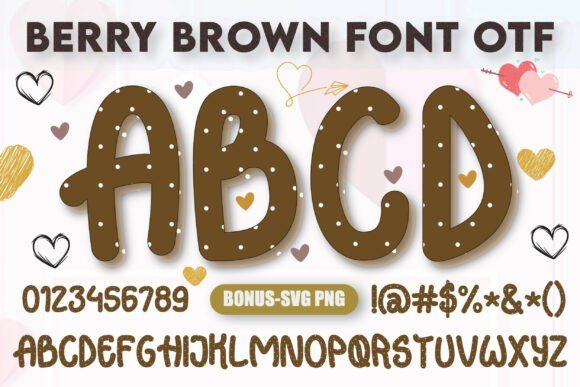
Berry Brown Font: Add a Touch of Whimsy to Your Designs
Have you ever found yourself staring at a blank page, desperately searching for the perfect font to bring your creative vision to life? I know I have! The struggle is real, but what if I told you there’s a font that’s sure to make your heart skip a beat? Enter the adorable Berry Brown Font, a charming display alphabet designed to add a sweet and friendly feel to your designs.
With its soft curves and bubbly character style, the Berry Brown Font is perfect for fun and creative projects that need a touch of warmth. Whether you’re designing for kids, creating branding materials, or crafting social media graphics, this font is sure to bring a smile to your face and a touch of whimsy to your work. As a designer, you’ll appreciate the versatility and playfulness of the Berry Brown Font, making it a valuable addition to your toolkit.
Berry Brown Font Key Features
- Unique Characteristics: Berry Brown Font features a unique, hand-drawn design with a warm, earthy tone, making it ideal for rustic or vintage-themed designs.
- Font Style: The font includes multiple font styles, including Regular, Italic, Bold, and Bold Italic, providing flexibility for various design applications.
- Kerning and Ligatures: The font includes advanced kerning and ligature pairs, ensuring smooth text rendering and professional-looking typography.
Berry Brown Font Review
The Berry Brown font has some really nice qualities that make it a great choice for certain designs. ✨ Its warm, earthy tone is perfect for creating a cozy and inviting atmosphere, and the subtle texture adds depth to any text. ✨ The font is also highly legible, even at smaller sizes, which is a must for any good font.
However, there are a few limitations that might make it less suitable for certain projects. ⚠️ For one, the font can feel a bit too casual for formal or professional designs. ⚠️ Additionally, the texture can sometimes make the font feel a bit busy or overwhelming, which can be distracting.
Here are some key pros and cons to consider:
- Warm, earthy tone perfect for cozy designs ✨
- Highly legible, even at smaller sizes ✨
- Subtle texture adds depth to text ✨
- Might be too casual for formal or professional designs ⚠️
- Texture can feel busy or overwhelming in some cases ⚠️
Overall, I think the Berry Brown font is a solid choice for designers who want to create warm and inviting designs. Just be mindful of its limitations and use it in the right context.
Here are some tips for getting the most out of the Berry Brown font:
– Use it for titles and headings to add a touch of elegance.
– Pair it with other fonts to create a unique and stylish combination.
– Experiment with different font sizes and colors to achieve the desired effect.
The Berry Brown font is commonly used for:
– Food and beverage branding
– Fashion and beauty branding
– Stationery and print materials
Alternatives to Berry Brown Font
Great Vibes Font is a modern, elegant script font that is perfect for creating a sophisticated and luxurious look. It is ideal for use in branding, packaging, and advertising where a high-end feel is desired.
Compared to Berry Brown Font, Great Vibes Font has a more refined and polished look, while Berry Brown Font has a more playful and whimsical feel.
Pacifico Font is a beautiful, cursive font that is inspired by the Pacific coast. It is perfect for use in creative projects, such as magazines, posters, and websites, where a relaxed and beachy vibe is desired.
Compared to Berry Brown Font, Pacifico Font has a more laid-back and casual feel, while Berry Brown Font has a more energetic and playful personality.
Carolyna Pro Font is a elegant, modern script font that is perfect for use in high-end branding, packaging, and advertising projects. It has a sophisticated and luxurious feel that is sure to make a statement.
Q: What is the recommended font size and line height for Berry Brown?